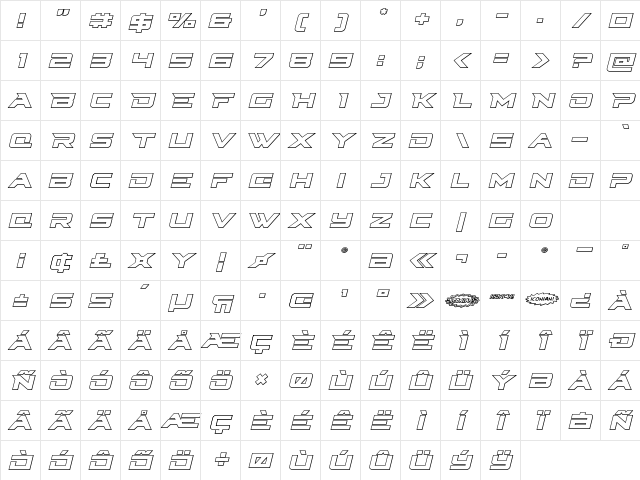
Cyberdyne Outline Italic Outline Italic
Style: Outline Italic
Design Context for Cyberdyne Outline Italic
Cyberdyne Outline Italic has a distinctly futuristic character, with geometric precision and clean angles that feel at home in technology, gaming, and sci-fi contexts. The slanted form adds forward momentum and visual energy.
Pro Tip: Try Cyberdyne Outline Italic with generous letter-spacing in UI labels and navigation - the geometric forms benefit from room to breathe.